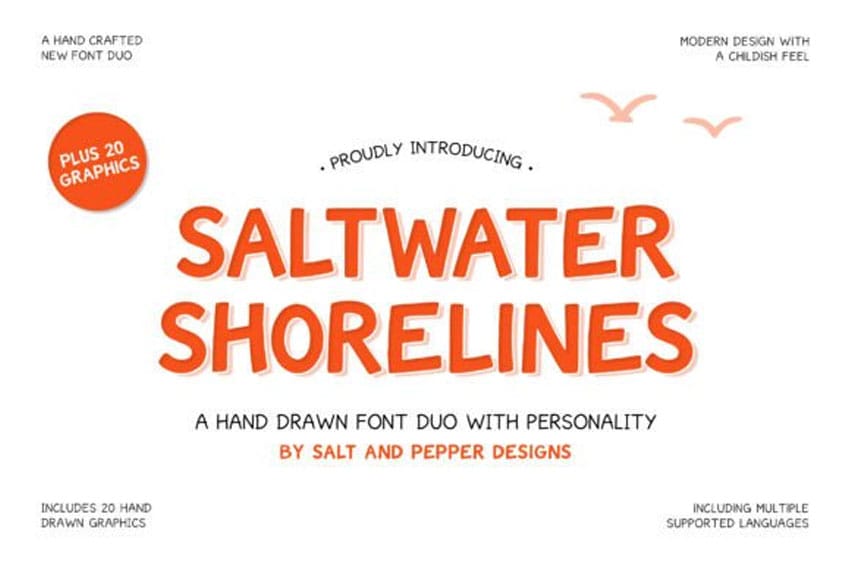
Saltwater Shorelines Font is a playful hand-drawn font duo full of personality and charm. With bold, rounded letters and a shadowed outline, this font captures the breezy essence of seaside fun.
Great for children’s apparel, summer party invites, beach-themed branding, or educational resources, it also comes with 20 delightful hand-drawn graphics to boost your creative toolkit.